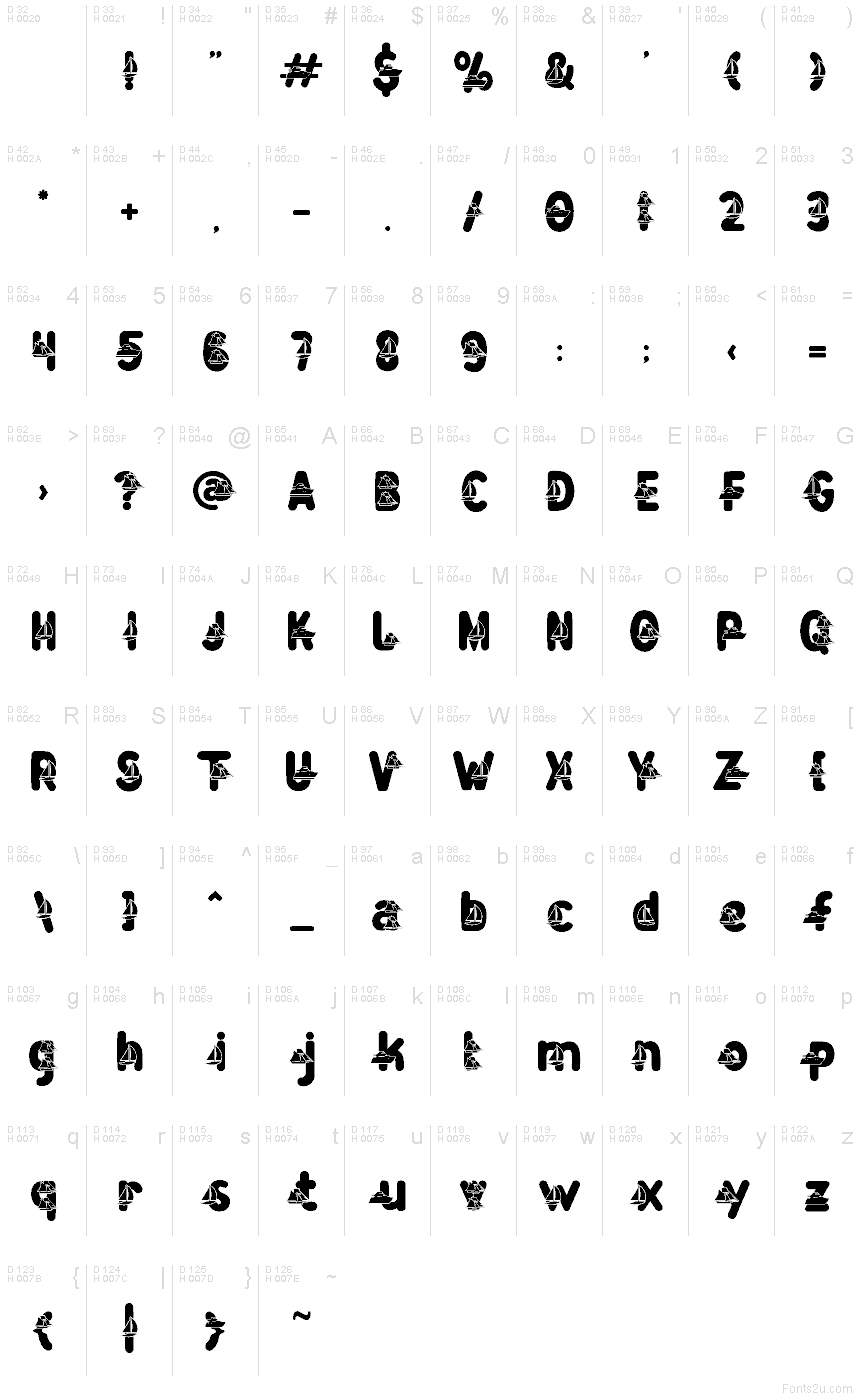
Zany Route Boat
Zany Route Boat font by PutraCetol Studio is a free decorative display font that captivates with its bold imagery inspired by nautical themes. Each character features integrated visuals of boat routes through contemporary design and relaxed, playful aesthetics.